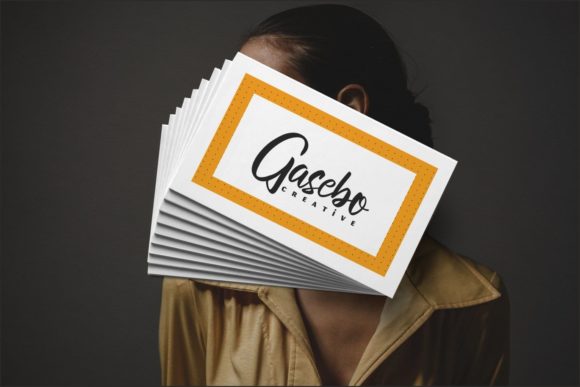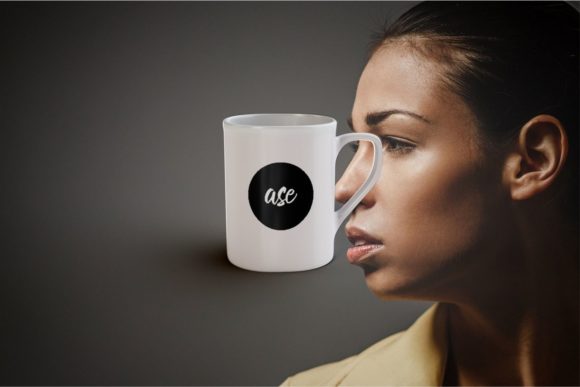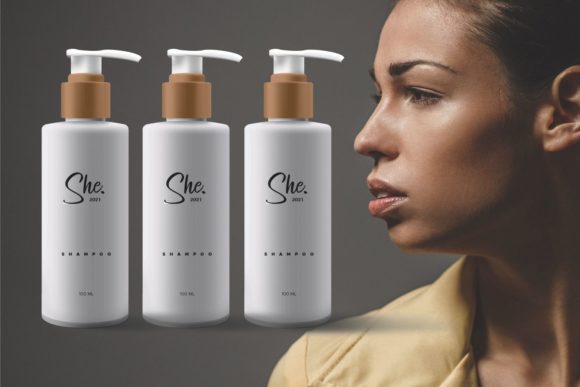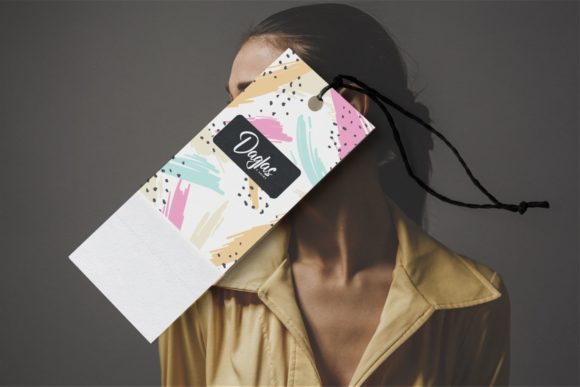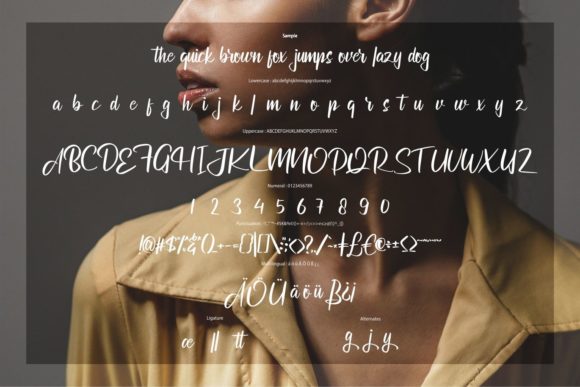
Astileza Astilula Font: Elevate Your Designs with a Stylish and Confident Typeface
In the world of typography, a well-crafted font can make all the difference in elevating your design projects from ordinary to extraordinary. If you’re a designer, craftsperson, or simply a creative enthusiast, you’re likely always on the lookout for unique and stylish typefaces to add a touch of personality to your work. That’s where the Astilula font comes in – a gorgeous and bold handwritten font designed to bring a strong, confident, and dynamic feel to your headlines and logotype projects.
The Charm of Astilula Font
Astilula is more than just a font – it’s a statement piece. With its bold, handwritten strokes, this typeface exudes a sense of confidence and style that’s sure to turn heads. Whether you’re working on a logo design, a branding project, or simply want to add some flair to your social media graphics, Astilula font is the perfect choice. Its unique blend of elegance and playfulness makes it an excellent addition to any design project, from modern and sleek to vintage-inspired and nostalgic.
Key Features of Astilula Font
- Bold and Confident: Astilula font features bold, expressive strokes that give your text a strong and confident appearance.
- Handwritten Style: The font’s handwritten style adds a touch of personality and whimsy to your designs, making them stand out from the crowd.
- Nostalgic Character: Astilula font has a unique ability to evoke a sense of nostalgia, making it perfect for designs that require a vintage or retro feel.
- Dynamic and Expressive: The font’s dynamic and expressive strokes make it ideal for use in headlines, logotypes, and other design projects where you want to make a statement.
Why Choose Astilula Font?
With so many fonts available, why choose Astilula? Here are just a few reasons why designers and crafters are falling in love with this gorgeous typeface:
- Versatility: Astilula font is incredibly versatile, making it suitable for a wide range of design projects, from logos and branding to social media graphics and more.
- Ease of Use: The font is easy to read and works well in both large and small sizes, making it perfect for use in a variety of applications.
- Unique Style: Astilula font has a unique style that’s sure to set your designs apart from the crowd.
Tips for Using Astilula Font
To get the most out of Astilula font, here are a few tips to keep in mind:
- Use it as a Headline Font: Astilula font is perfect for use in headlines and titles, where its bold and confident style can really shine.
- Pair it with a Simpler Font: For body text, consider pairing Astilula font with a simpler, easier-to-read font to create visual interest and hierarchy.
- Experiment with Colors: Astilula font looks great in a variety of colors, so don’t be afraid to experiment and find the perfect hue to match your brand or design.
If you’re looking for a font that will add a touch of style and sophistication to your design projects, look no further than Astilula font. With its bold, confident strokes and nostalgic character, this gorgeous handwritten font is sure to become a favorite in your design arsenal. Whether you’re a seasoned designer or just starting out, Astilula font is a must-have for anyone looking to elevate their designs and make a lasting impression.